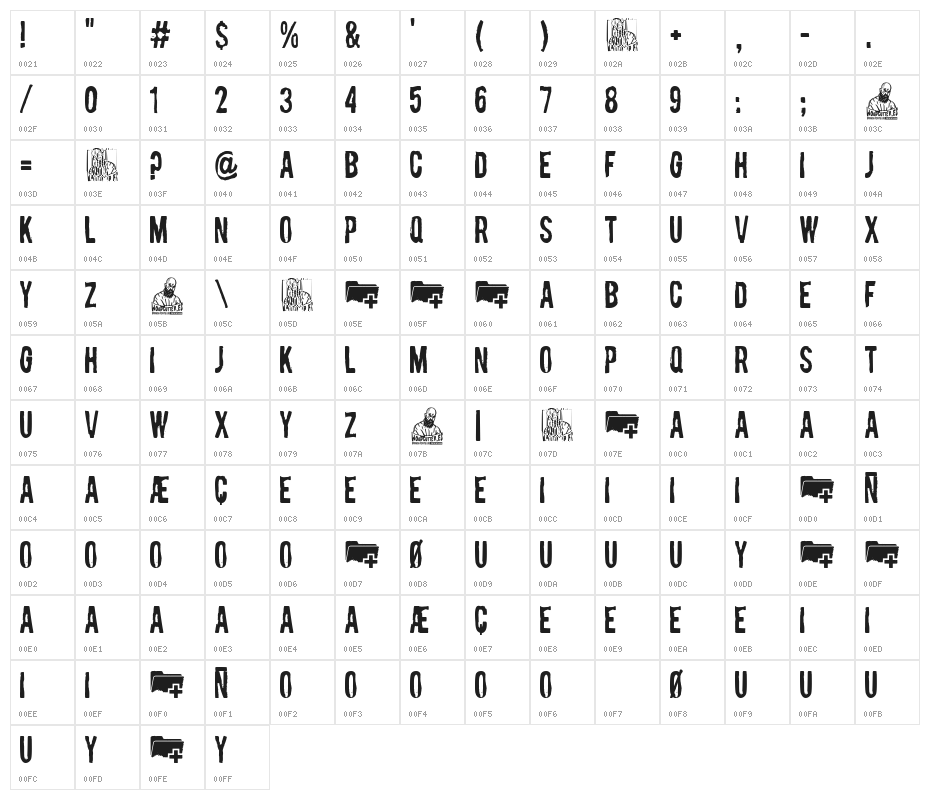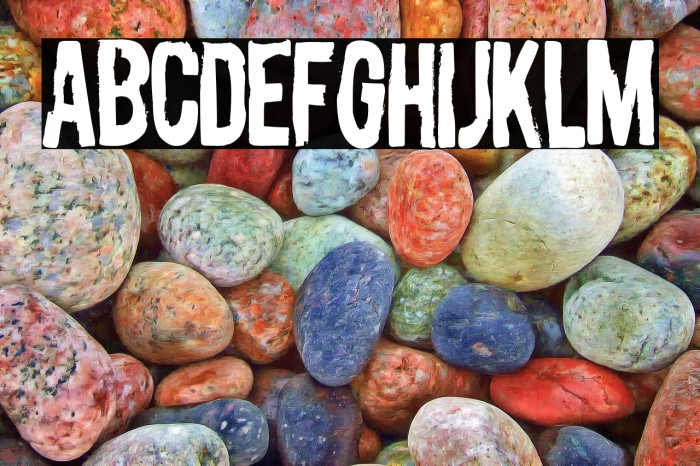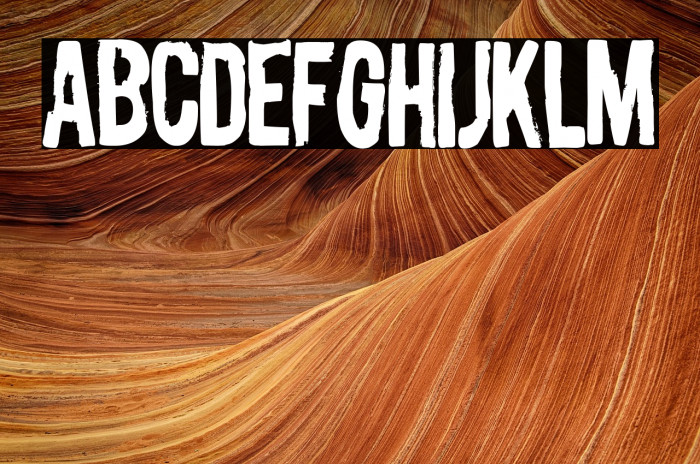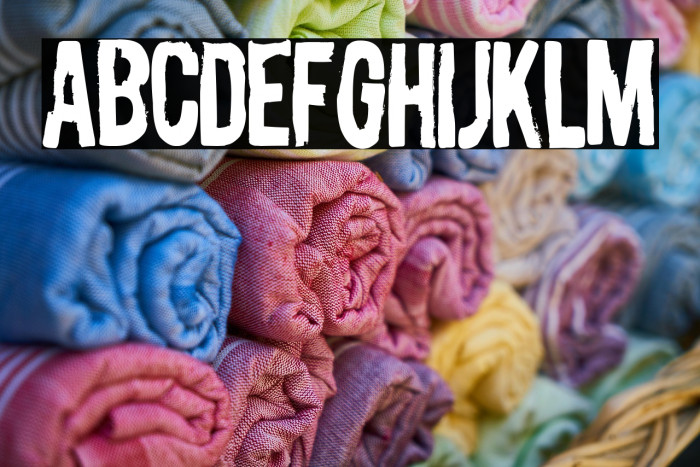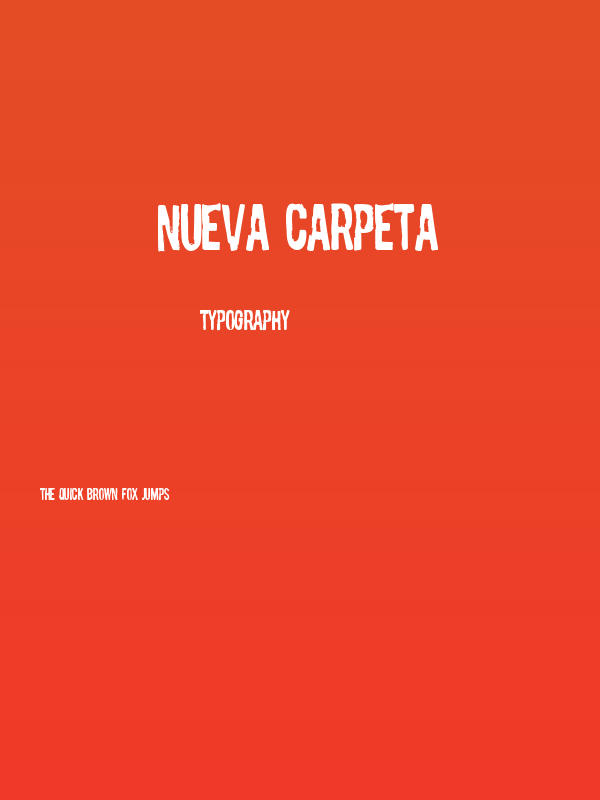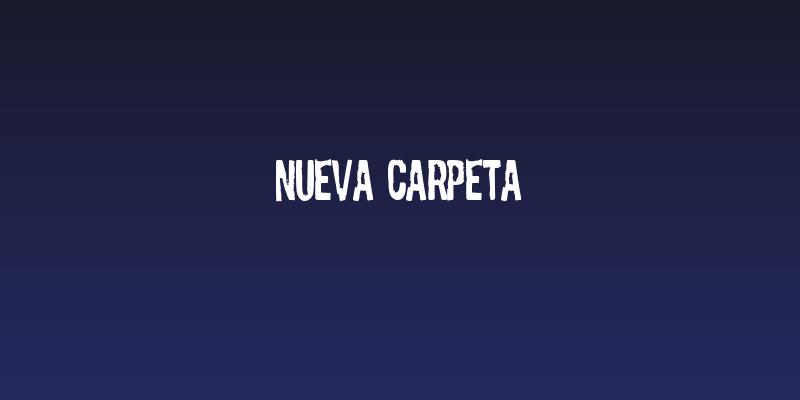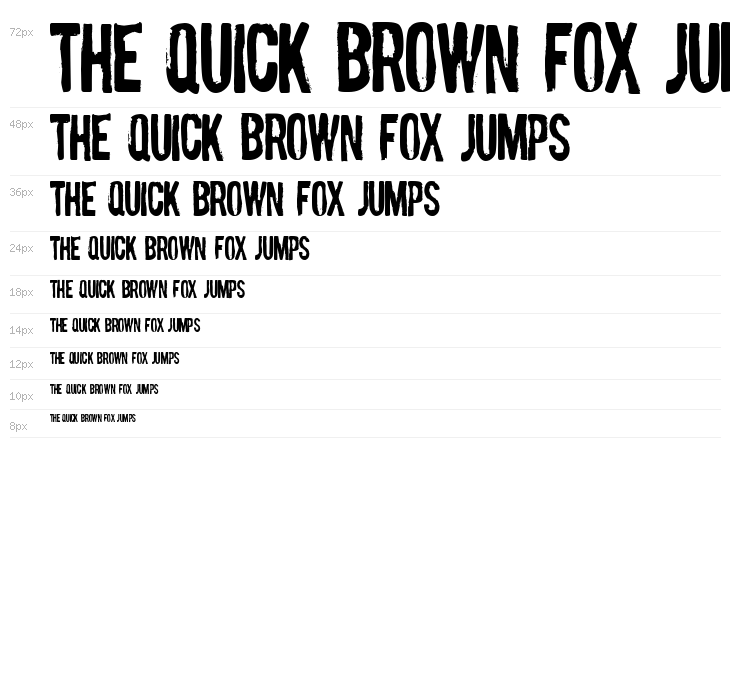
Nueva Carpeta Font
Nueva Carpeta Description
This font features a bold and rugged style with a distressed texture that gives it a hand-painted appearance. The uppercase letters are prominent and slightly irregular, adding to the font's rustic charm. The numbers and special characters maintain the same distressed look, ensuring consistency across all glyphs. This font's unique style makes it stand out, perfect for projects that require a strong and impactful visual presence.
| Proposed Projects | Ideal for posters, logos, branding, and any design project that seeks to convey a strong, vintage, or handcrafted aesthetic. |